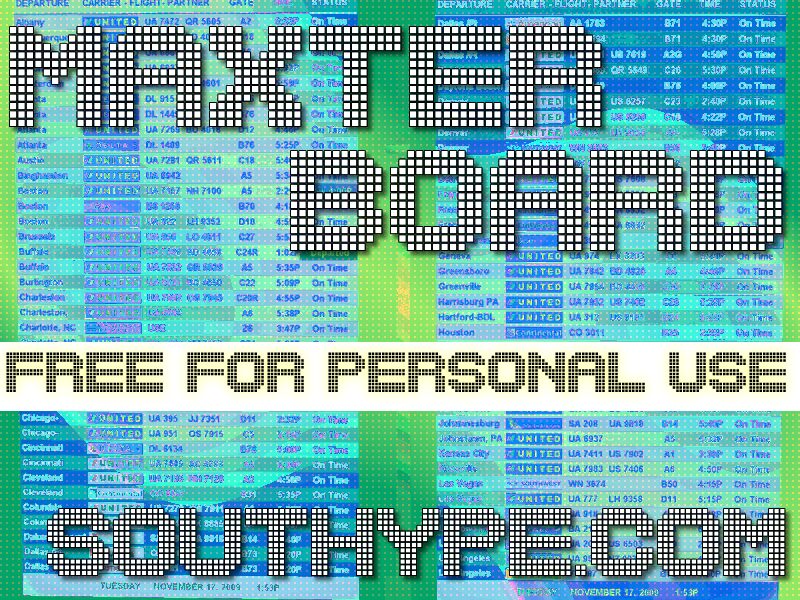
Maxter Board St. is a striking, digital display font that commands attention with its bold, expanded letterforms. Designed by Southype, this original typeface exudes a dynamic, technological aesthetic, making it well-suited for a range of design applications.
Its angular, geometric shapes and distinct character forms lend a sleek, contemporary feel that would shine in headlines, branding, and promotional materials. Maxter Board St. is particularly well-suited for charitable campaigns, school newsletters, and independent YouTube videos, where its bold presence can effectively convey messages and create visual impact.